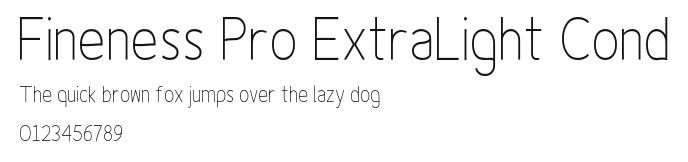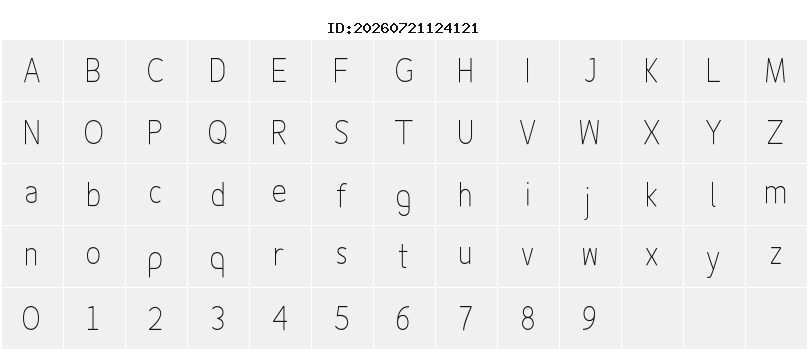
• Font Name: Fineness Pro ExtraLight Cond
• Designer: Asley Cruz
About Fineness Pro ExtraLight Cond.otf
Fineness Pro ExtraLight Cond.otf is a modern, elegant sans-serif font designed for ultimate readability and visual harmony. Perfect for branding, headlines, web design, and print materials.